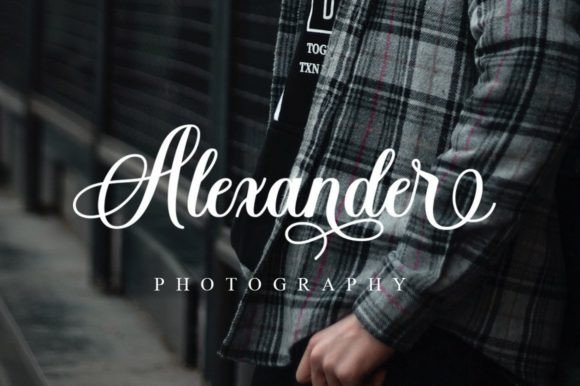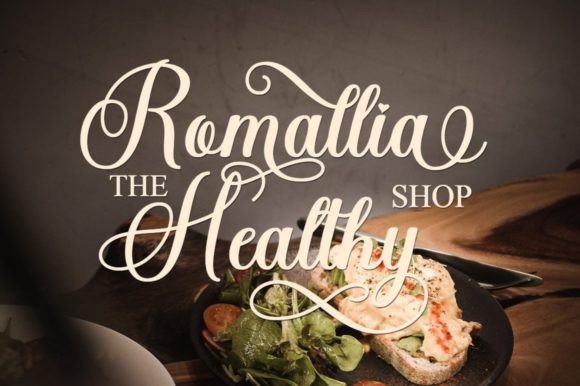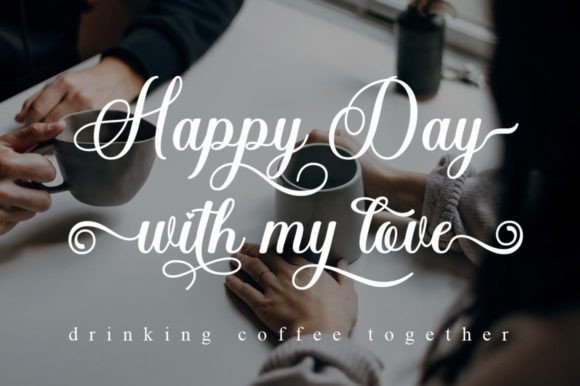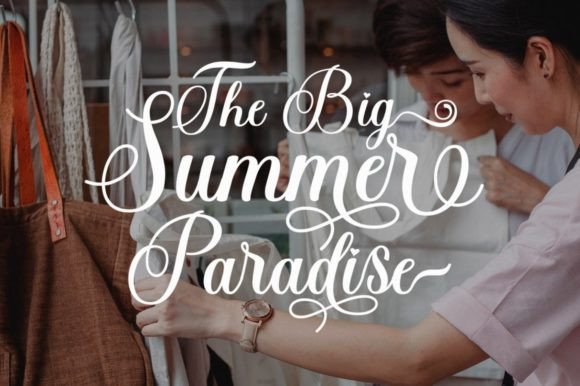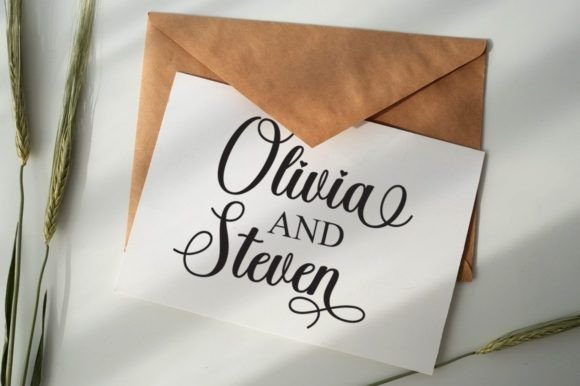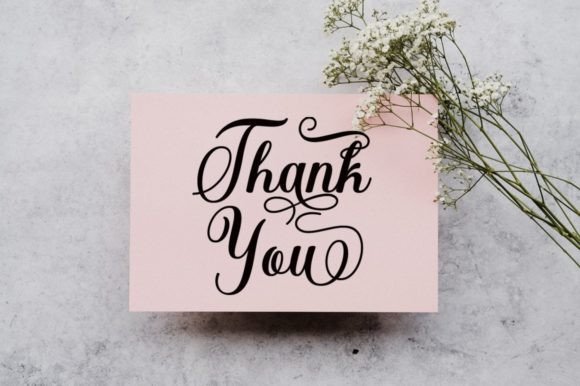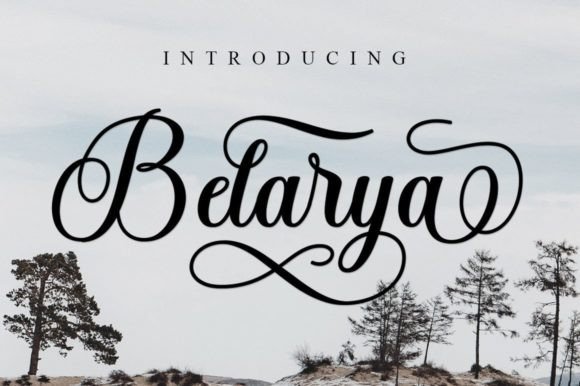
Introducing Belarya Font: Elevate Your Designs with a Modern Handwritten Touch
In the world of design, fonts play a pivotal role in conveying messages, evoking emotions, and creating lasting impressions. For designers, crafters, and DIY enthusiasts looking to infuse a personal and modern touch into their projects, the Belarya Font is an exceptional choice. This modern handwritten font is versatile, elegant, and designed to make your creative projects stand out from the crowd.
What Makes Belarya Font Special?
Belarya Font is not just another addition to your font library; it’s a game-changer for anyone looking to add a unique and professional flair to their designs. Here are some features that make Belarya truly special:
- Modern Handwritten Style: Belarya boasts a contemporary handwritten style that is both elegant and approachable. Its fluid strokes and charming ligatures bring a sense of warmth and personality to any project.
- Versatility: Whether you’re working on branding materials, wedding invitations, magazines, mugs, business cards, quotes, posters, or any other creative project, Belarya is the perfect companion. Its versatility ensures that it can adapt to various design needs, making it a valuable asset in your font collection.
- PUA Encoded: Belarya Font is PUA (Private Use Area) encoded, which means it offers easy access to all glyphs and swashes. This feature allows designers to explore a wide range of creative possibilities without the hassle of glyph management.
Applications of Belarya Font
The applications of Belarya Font are vast and varied. Here are some popular uses:
- Branding: Create memorable brand identities with custom logos, packaging, and marketing materials that speak to your audience with a personal touch.
- Wedding Invitations: Add a touch of romance and sophistication to your wedding stationery with beautifully designed invitations, save-the-dates, and thank-you cards.
- Magazines and Editorial Design: Elevate your editorial designs with a font that offers readability and style, making your content more engaging for readers.
- Mugs and Merchandise: Stand out in the world of custom merchandise with unique and eye-catching designs on mugs, t-shirts, and other promotional items.
- Business Cards: Make a lasting impression with elegant and professional business cards that reflect your personal brand.
- Quotes and Posters: Create inspiring and shareable content with beautifully designed quotes and posters that capture the essence of your message.
Why Choose Belarya Font?
In a sea of fonts, Belarya stands out for several reasons:
- Uniqueness: Belarya offers a unique style that is not commonly found, allowing your designs to stand out.
- Ease of Use: Being PUA encoded, it offers ease of use, especially for designers who want to focus on creativity rather than technicalities.
- Support for Creative Projects: Whether you’re a professional designer or a DIY enthusiast, Belarya provides the tools you need to bring your creative visions to life.
Belarya Font is more than just a font; it’s a design companion that can elevate your creative projects to new heights. Its modern handwritten style, versatility, and ease of use make it an invaluable resource for designers and crafters alike. Whether you’re looking to create stunning branding materials, beautiful wedding invitations, or impactful posters, Belarya is the perfect choice. Add it to your creative arsenal today and watch your designs transform with a touch of elegance and personality.